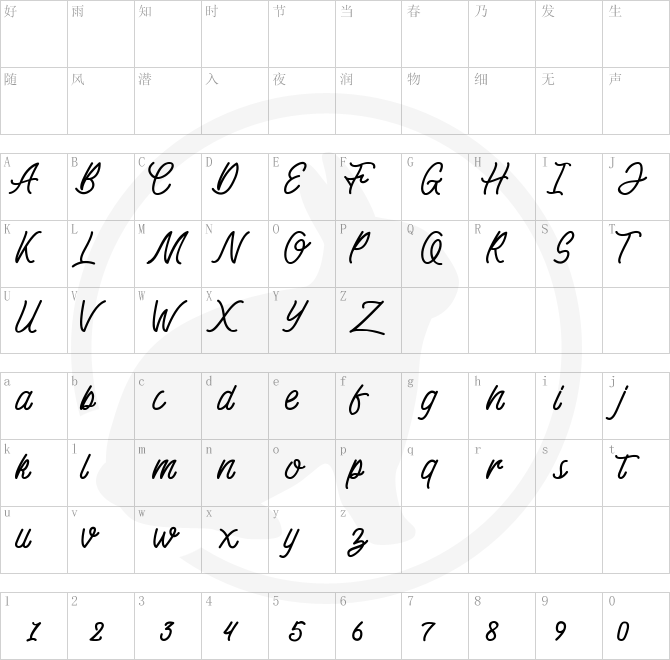
- Font Name:Kadisoka Monoline
Kadisoka-Monoline.ttf is a very beautiful artistic font, Kadisoka-Monoline.ttf is widely used in the design and printing of various books and pictures,Kadisoka-Monoline.ttf has a strong visual impact,Kadisoka-Monoline.ttf is a commonly used font in newspapers, magazines and books, and is used in posters, e-commerce Poster design, store design, logo design, font design and other fields.Kadisoka-Monoline.